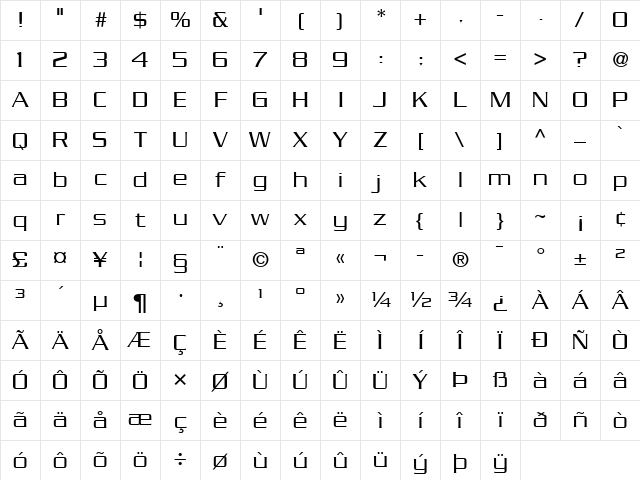
Serpentine LT Light Regular
Serpentine LT Light Family
Design Context for Serpentine LT Light
Serpentine LT Light is a composed and adaptable typeface that performs quietly and consistently across a wide range of design contexts. Its slender proportions lend an understated elegance to any composition.